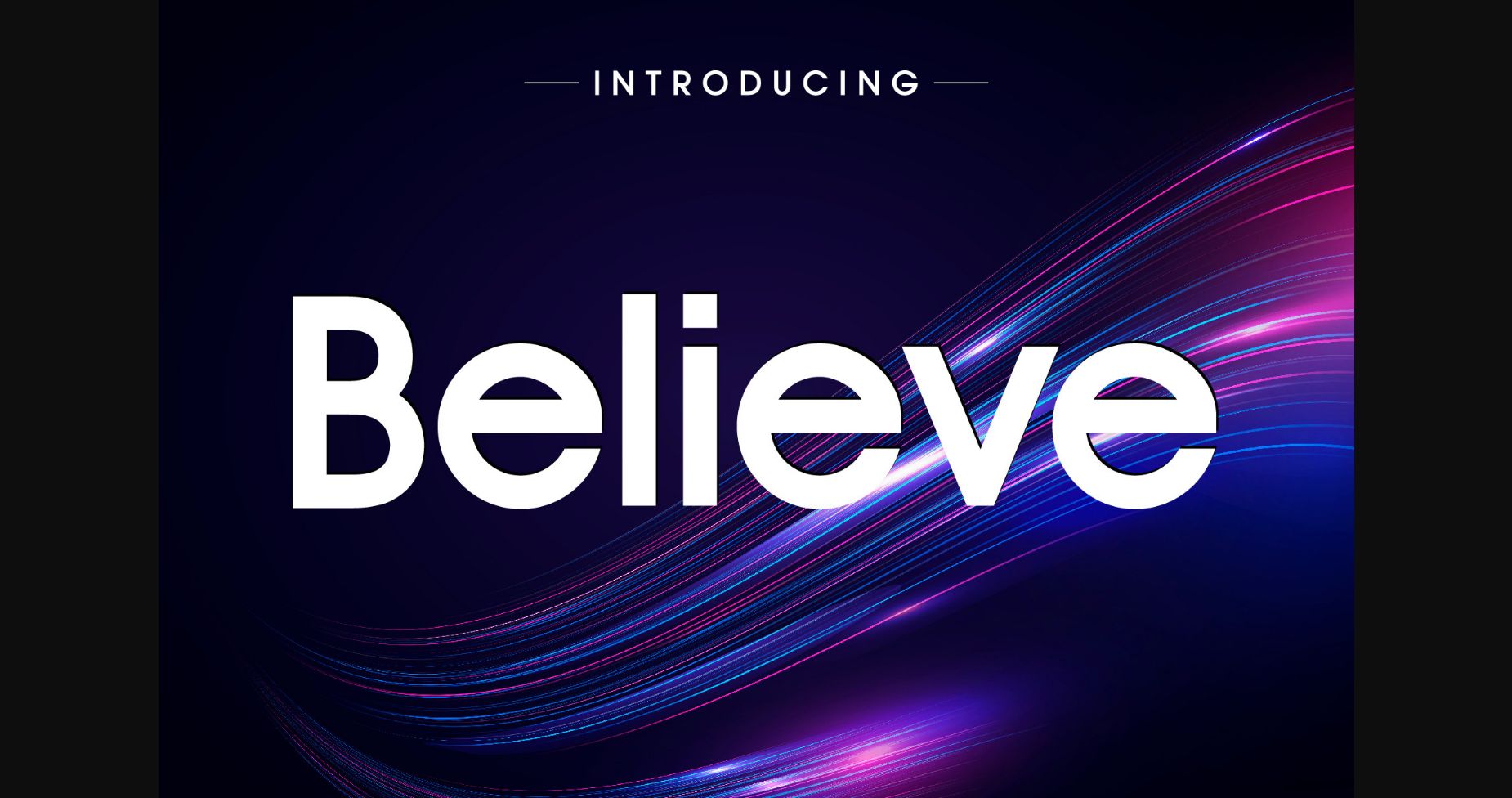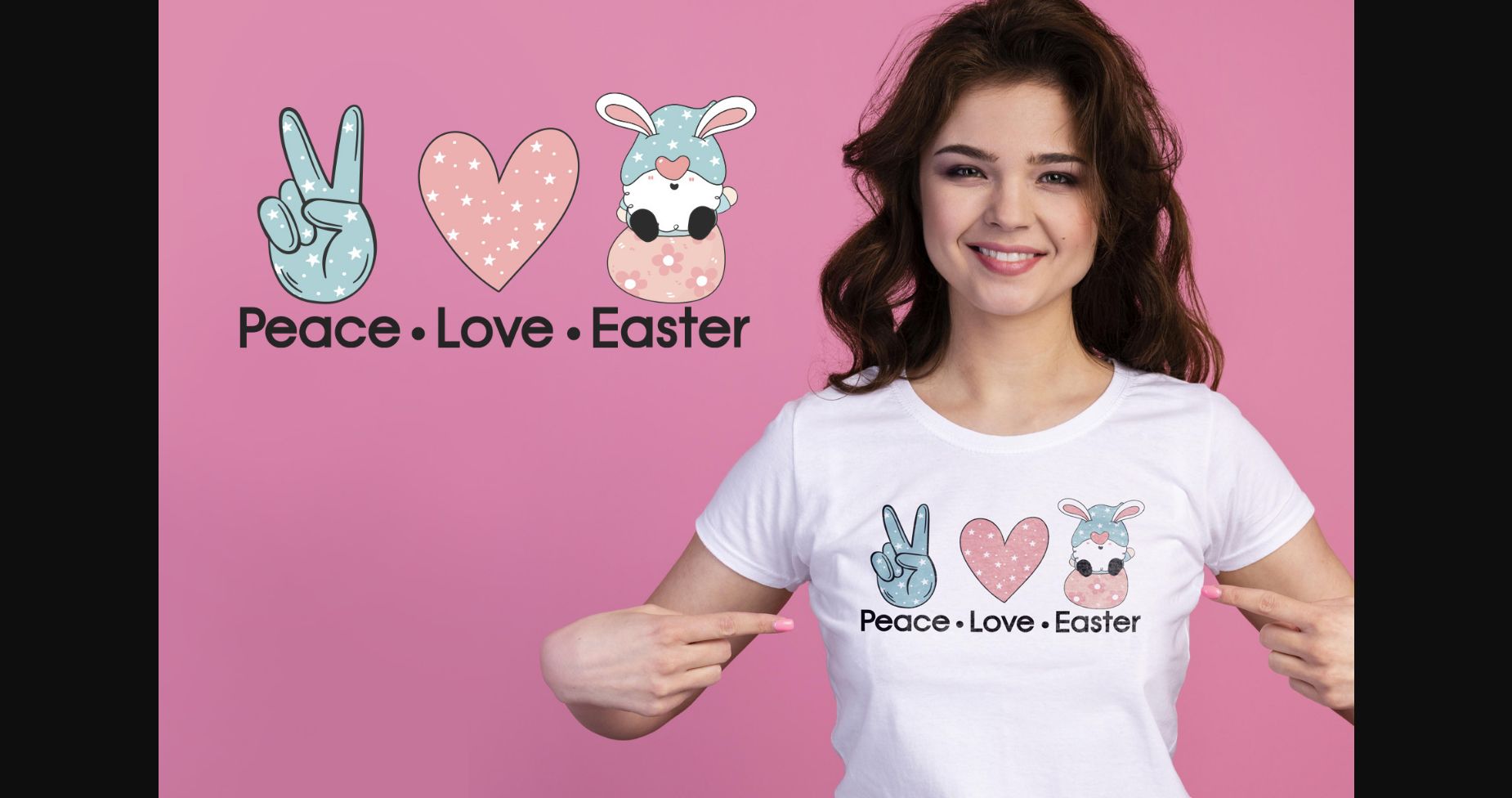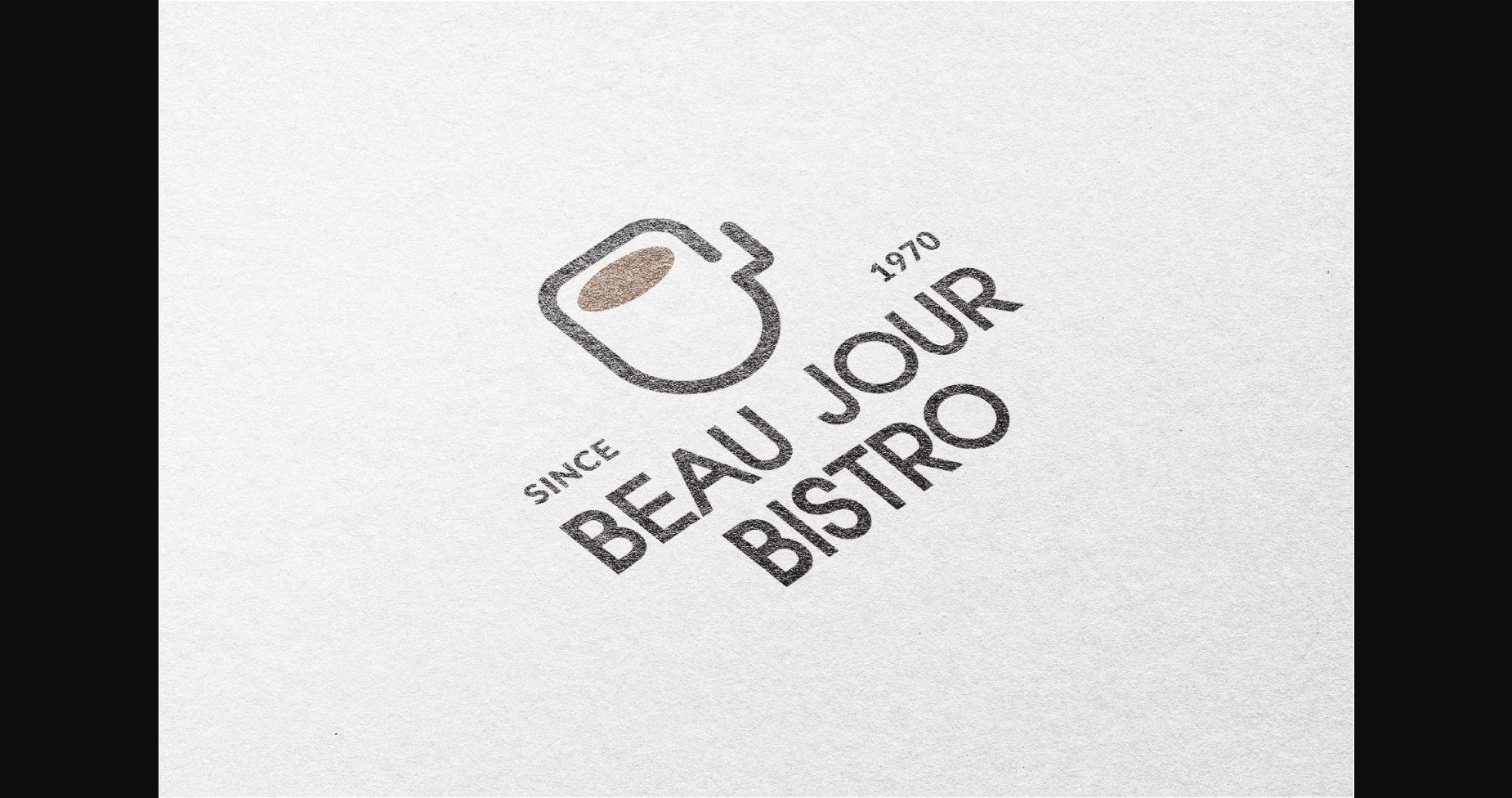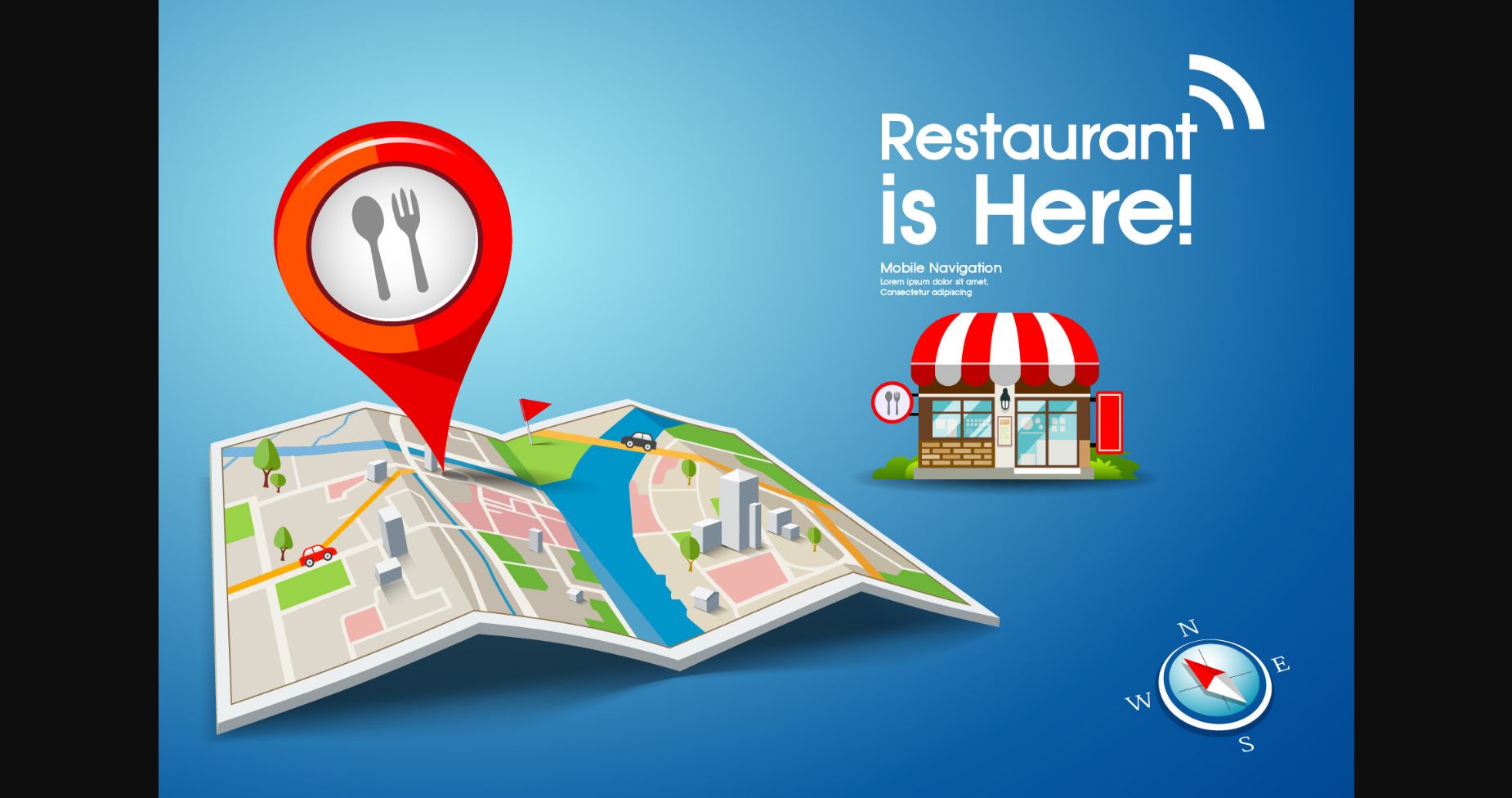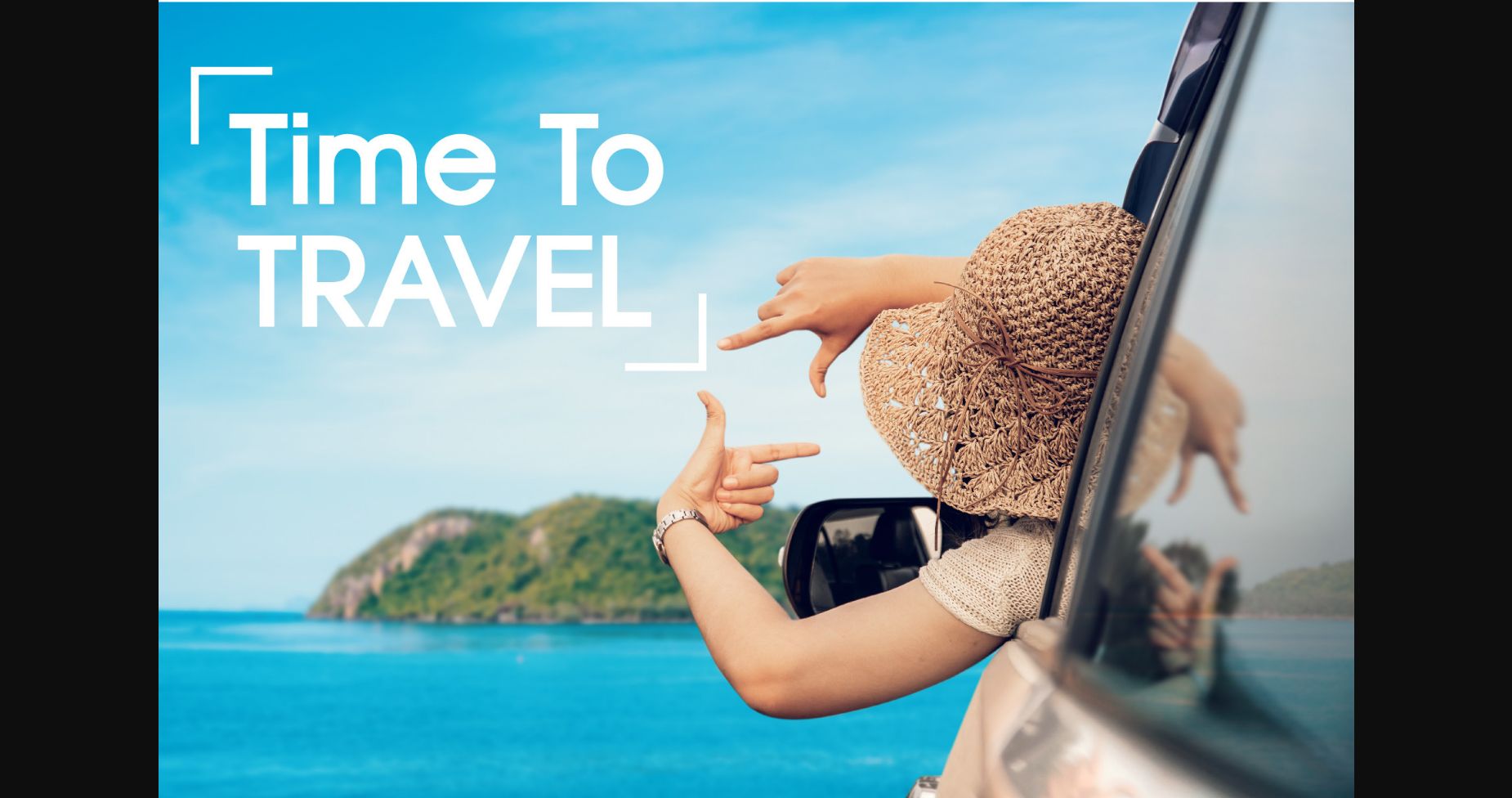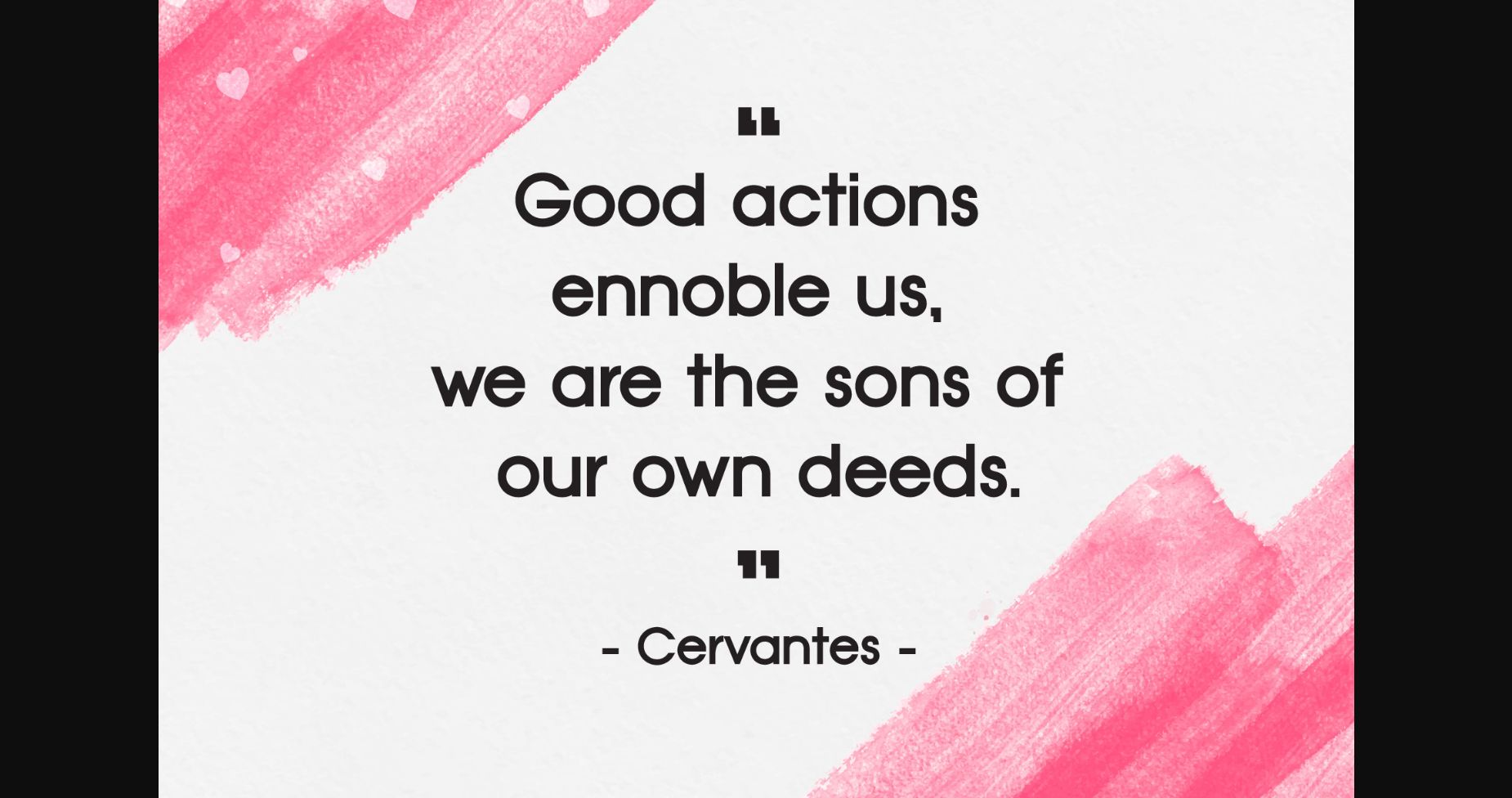
About Believe Font
Believe is a modern, easy-to-read, and stylish sans serif font. It’s suitable for branding, logos, packaging, card-making, magazines, films, posters, websites, and more creative ideas. Add it to your fresh ideas and notice how it makes them stand out!